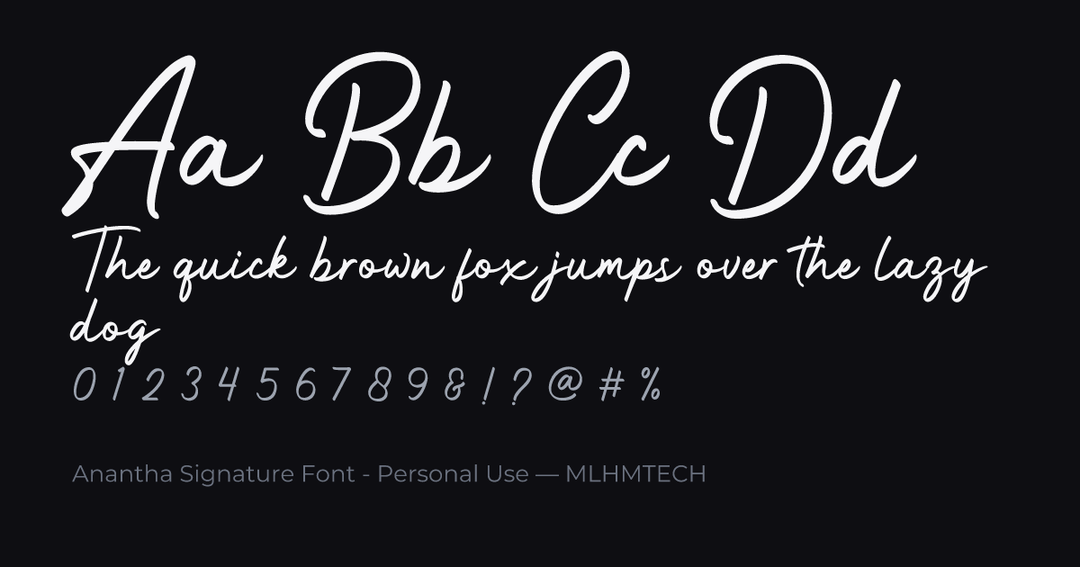
Anantha Signature Font - Personal Use
Anantha is an elegant signature-style script font with a personal touch, ideal for logos, wedding invitations, and branding. This TTF file is free for personal use.
Anantha Signature Font brings a refined, handwritten elegance to your projects. Its flowing strokes and natural curves make it perfect for creating authentic signatures, logos, and personalized designs. Whether you're designing a wedding invitation, a brand identity, or a social media graphic, this font adds a sophisticated, human touch.
With its versatile style, Anantha works beautifully in both digital and print media. Pair it with clean sans-serifs for a modern look or use it alone for a bold statement. Download and start creating with this charming signature font today.